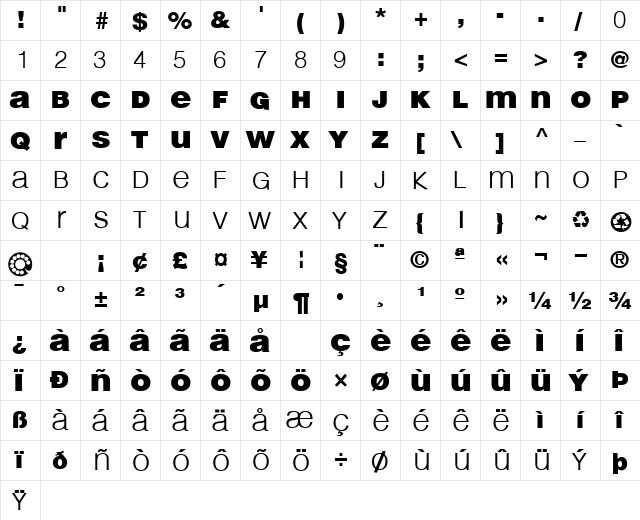
Light & Black Bold
Design Context for Light & Black Typeface
Light & Black is a composed and adaptable typeface that performs quietly and consistently across a wide range of design contexts. Its bold stroke weight gives it real presence on the page.